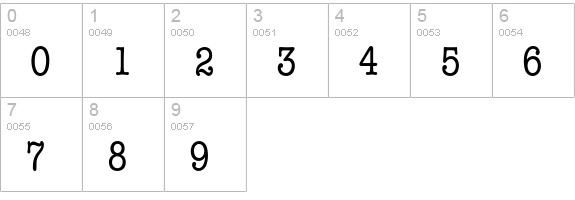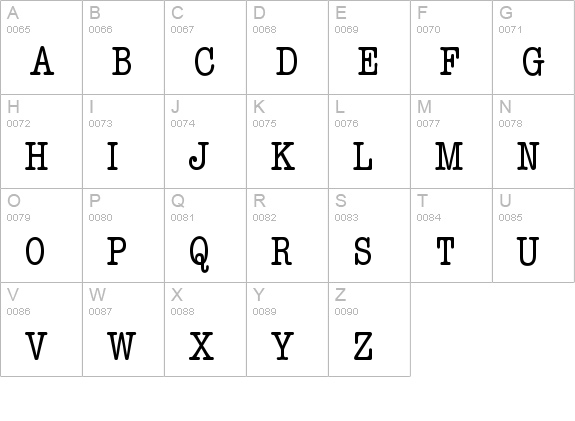
American Typewriter* Medium Condensed is a balanced, medium-weight, condensed-width variant in the American typeface family \xE2\x80\x94 well suited to sub-headlines, navigation, and balanced editorial work.
American Typewriter Medium Condensed font is a timeless and versatile typeface that exudes a classic and professional aesthetic. With its condensed design, it is perfect for saving space while maintaining readability. The sturdy and reliable appearance of this font makes it ideal for various design projects, from editorial layouts to branding materials. And the best part? American Typewriter Medium Condensed font is available for free download at FontsMarket.com. Whether you are a designer looking to add a touch of vintage charm to your work or a writer aiming to create a polished look for your documents, this font is a must-have in your collection. Download it now and enjoy the elegance and sophistication that American Typewriter Medium Condensed font brings to your projects.